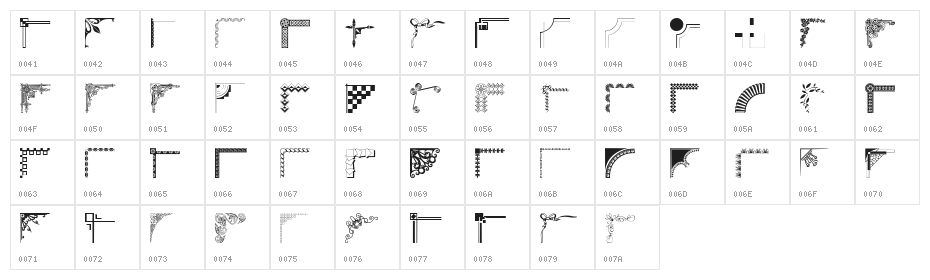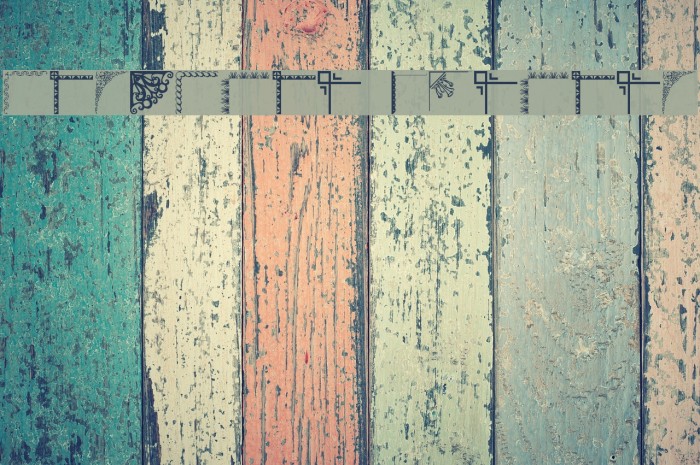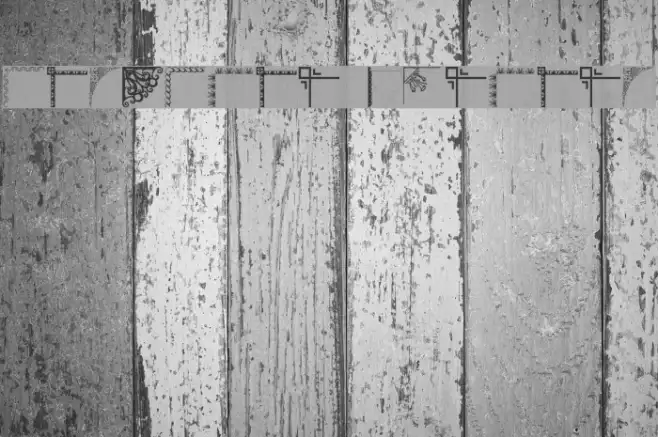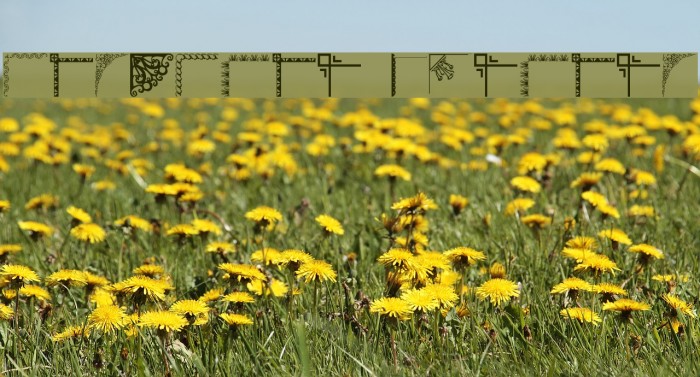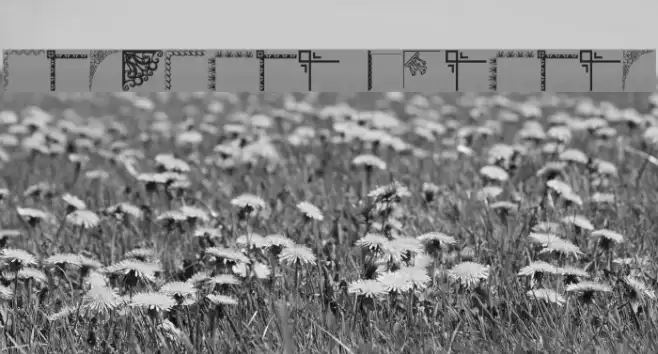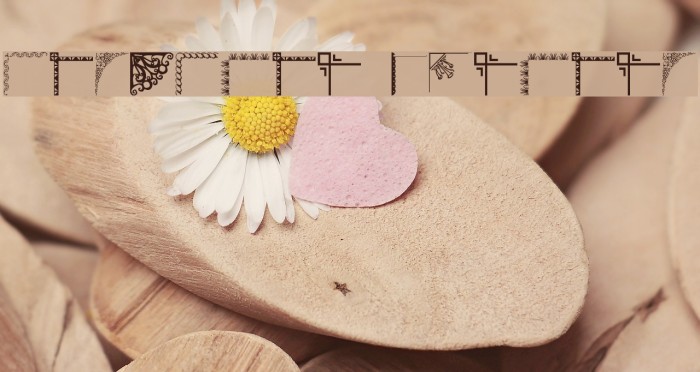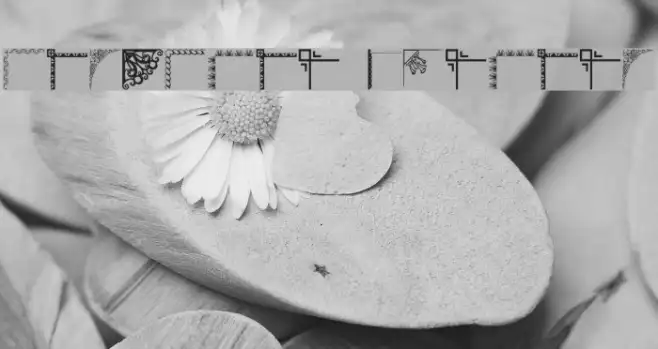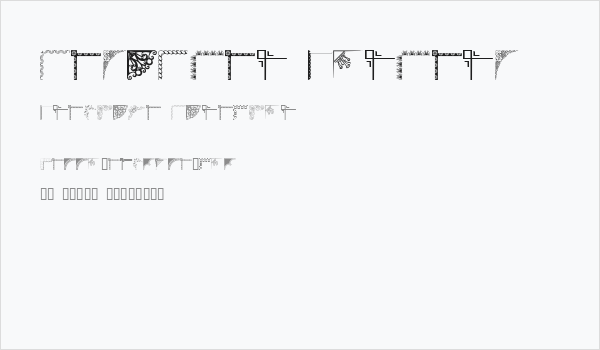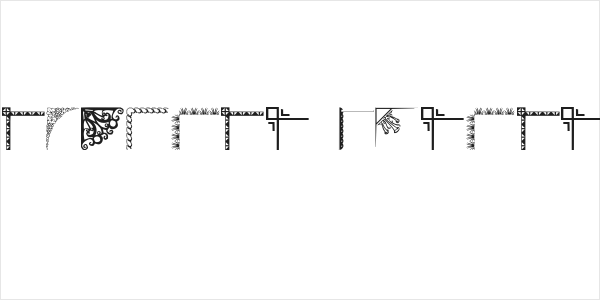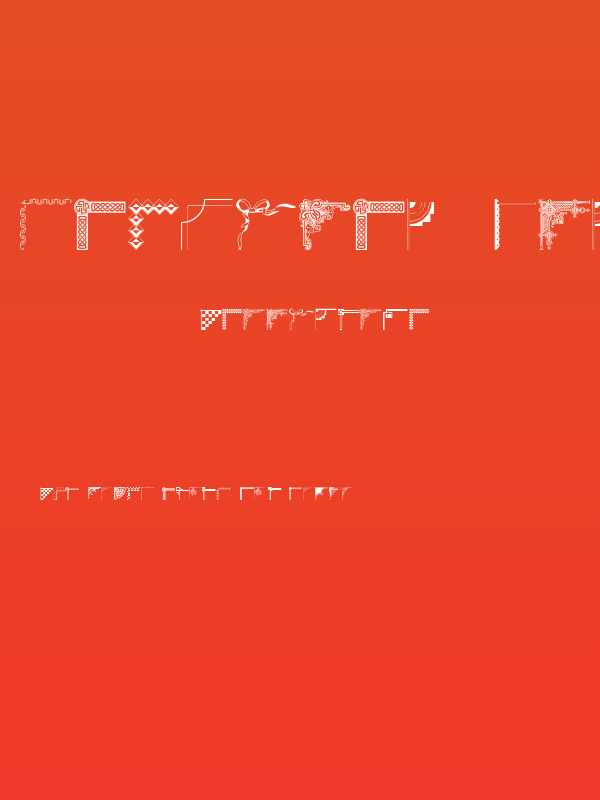
Designer Corners Font
Designer Corners Description
A decorative display set featuring a wide variety of ornate, geometric, and illustrative corner designs, each character representing a unique corner embellishment. The style ranges from intricate floral and filigree motifs to bold geometric and abstract forms, making it highly ornamental and visually diverse.
| Overall Style | Decorative, Ornamental, Eclectic |
| Use Case | Borders, Frames, Decorative accents |
| Proposed Projects | Invitations, certificates, scrapbooking, decorative borders, digital art, vintage or modern design accents. |